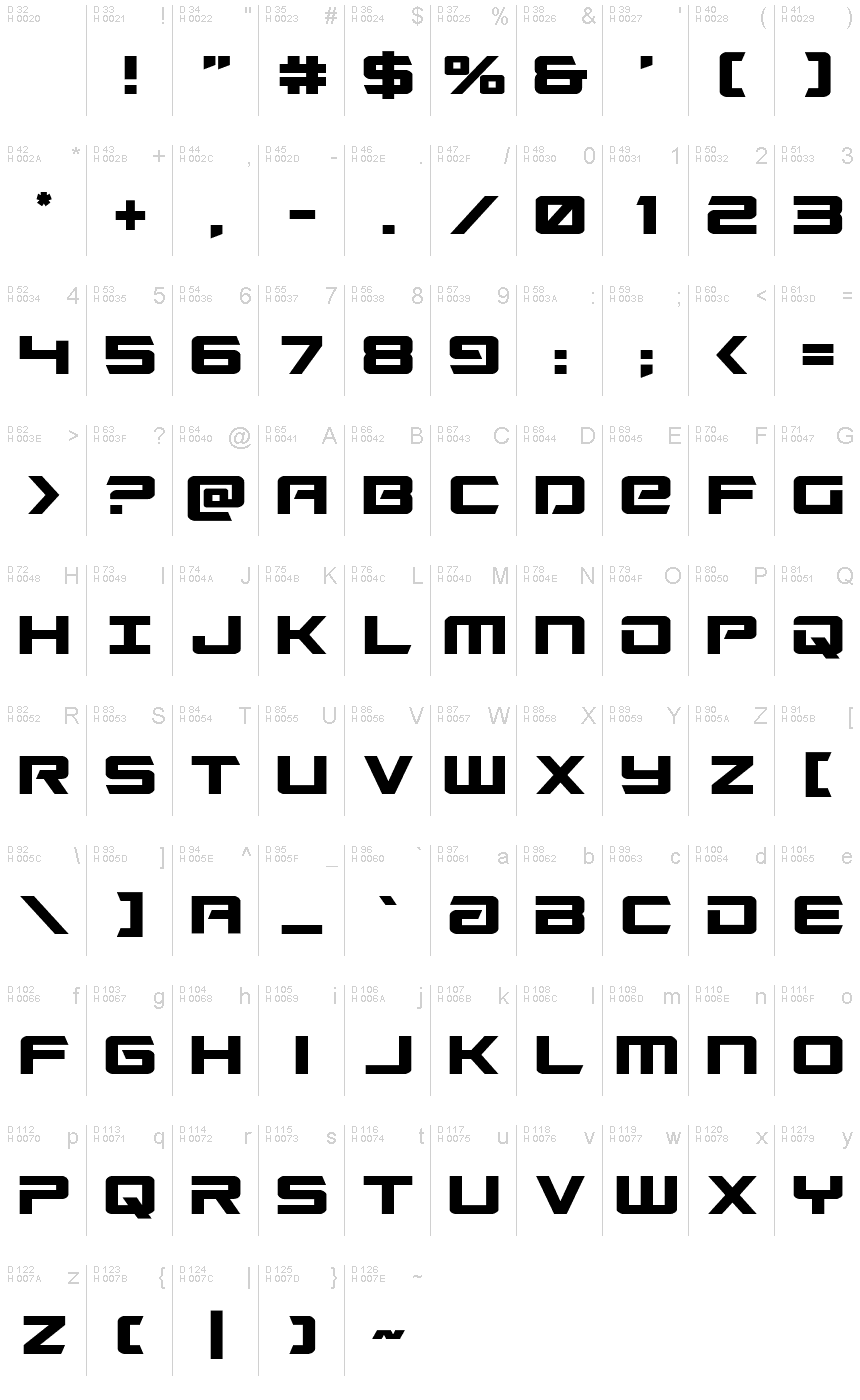
Captain Falcon
Captain Falcon is a cutting-edge, semi-bold display font designed by Iconian Fonts. With its futuristic style and extra-expanded width, this font is perfect for projects that demand a bold and modern aesthetic. Ideal for sci-fi movie posters, video game titles, or tech-related websites, Captain Falcon commands attention with its sleek and innovative design. Its distinctive letterforms will captivate viewers and evoke a sense of adventure. Unleash the power of this typeface to create captivating and diverse projects that stand out from the crowd. Let Captain Falcon take your designs to new heights!